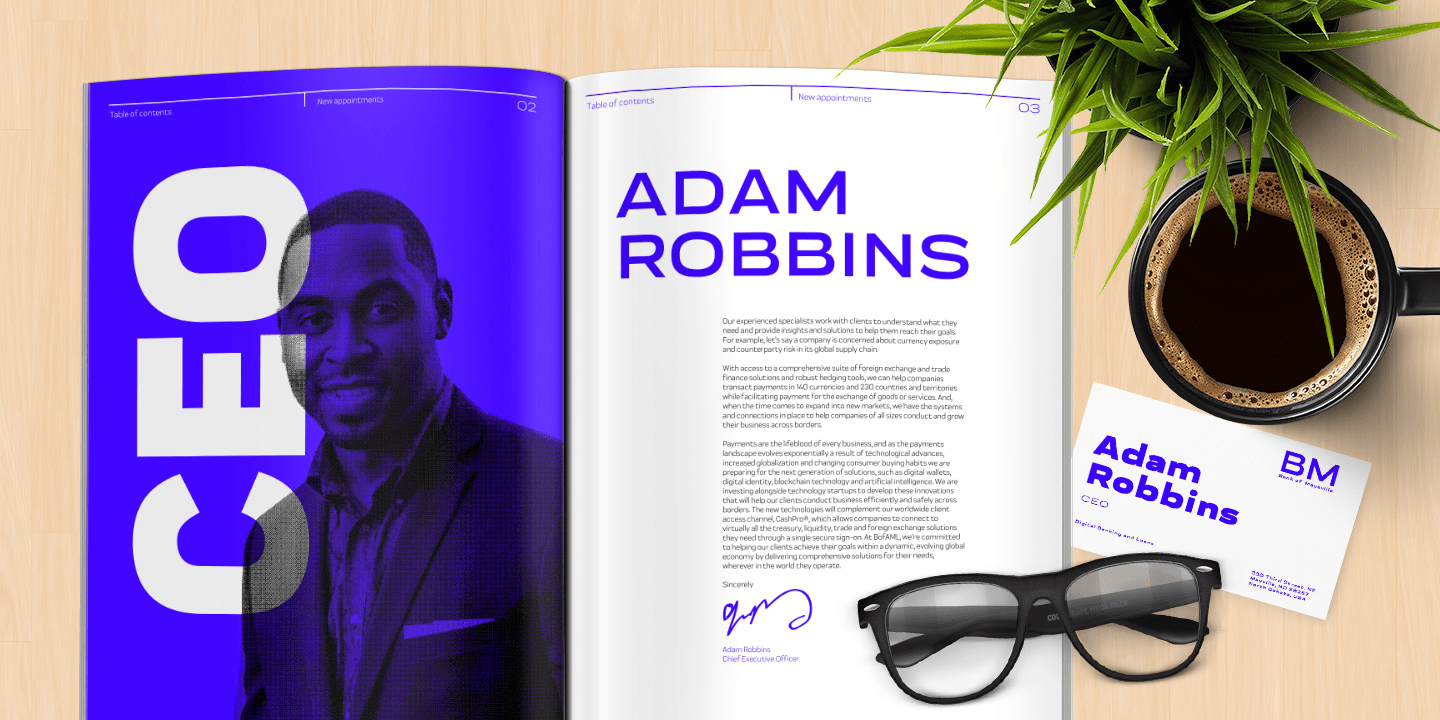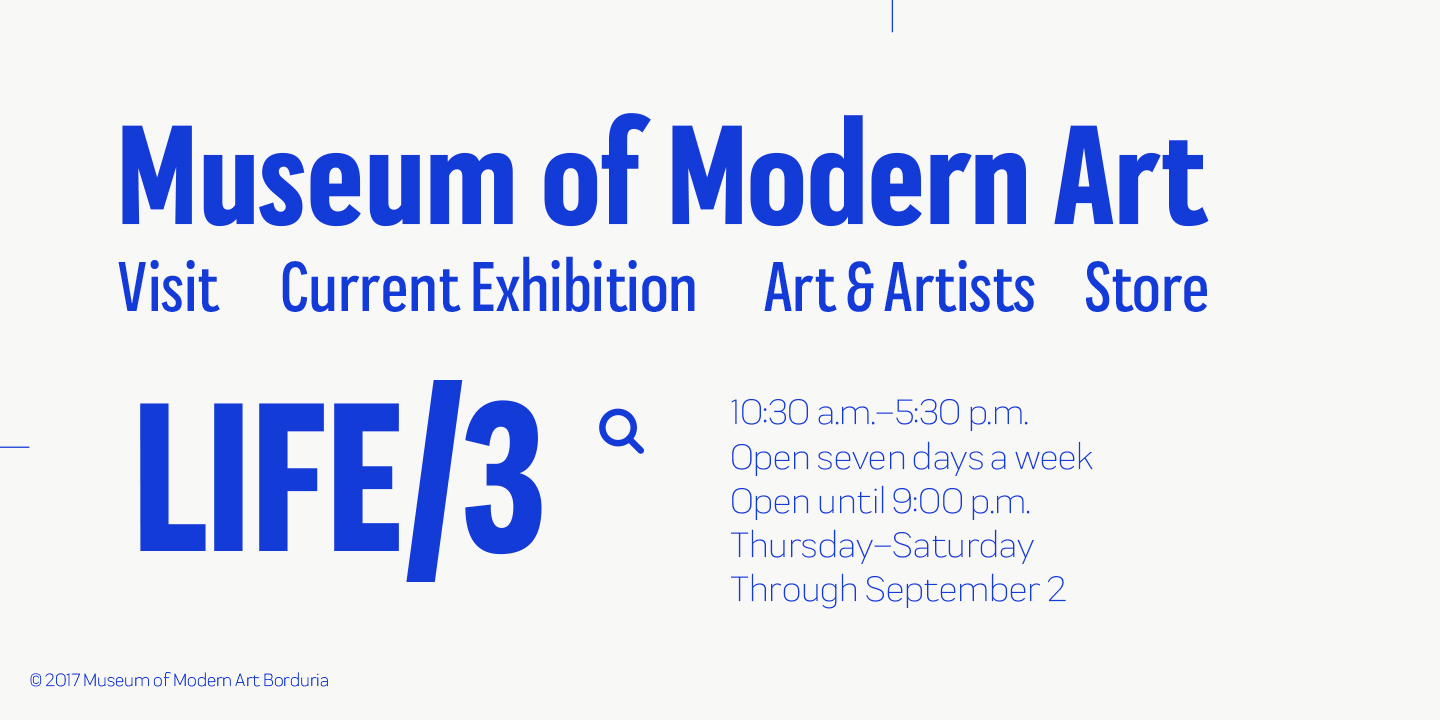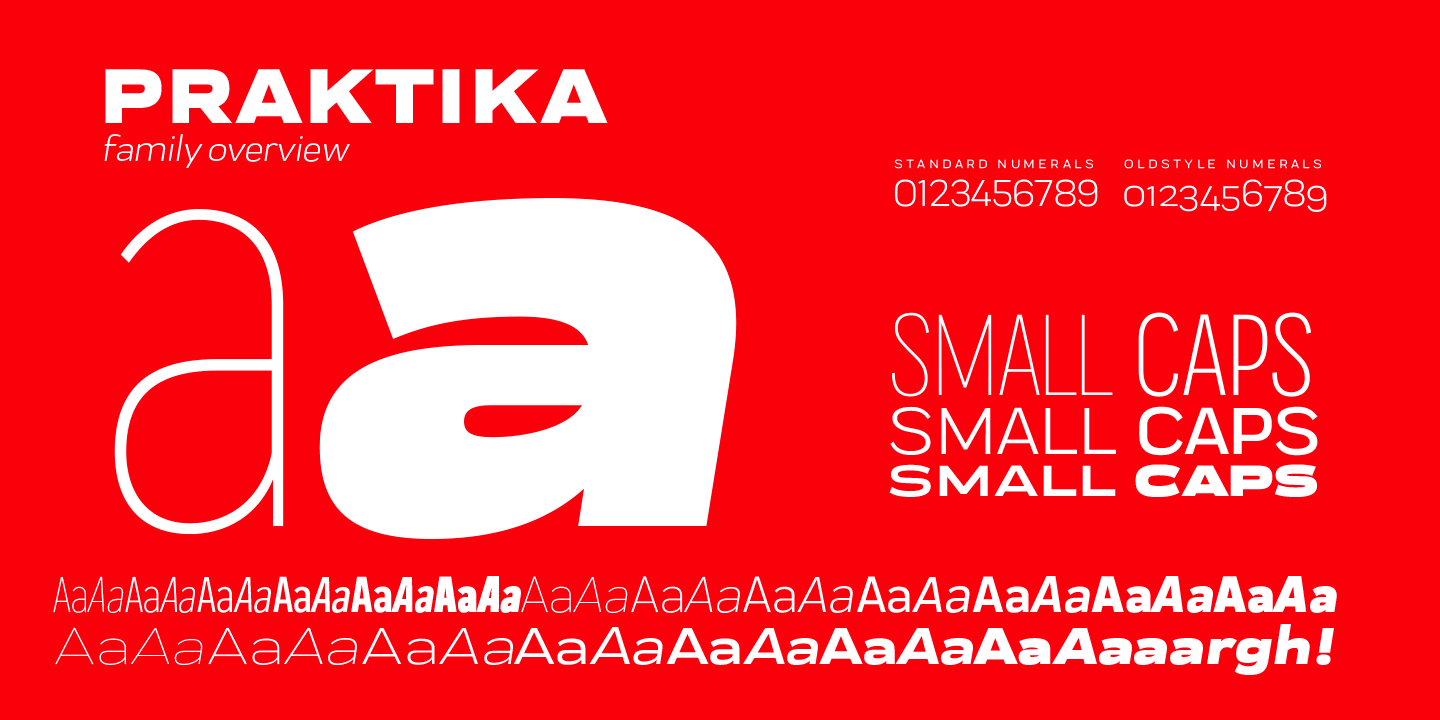
About Praktika
Modern Grotesk meets super family! Praktika is a multifunctional super family of 40 fonts. It consists of three distinct widths and weights from extra light to extra bold. Conceptually, it is a rendition of the familiar early 20th century European grotesque…